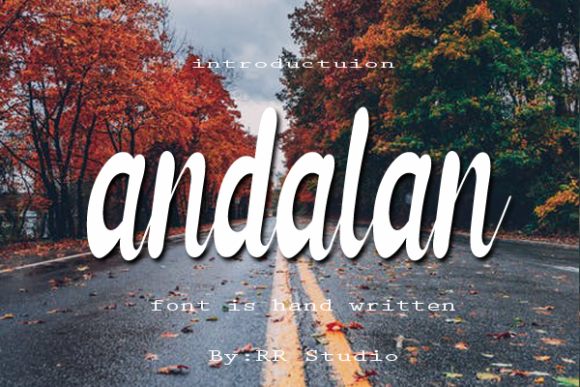
Andalan Font
About Andalan Font
Andalan is a well-balanced handwritten font. This adaptable script font has a wide spectrum of applications ranging from greeting cards to headlines and is guaranteed to add a romantic feel to your next project.